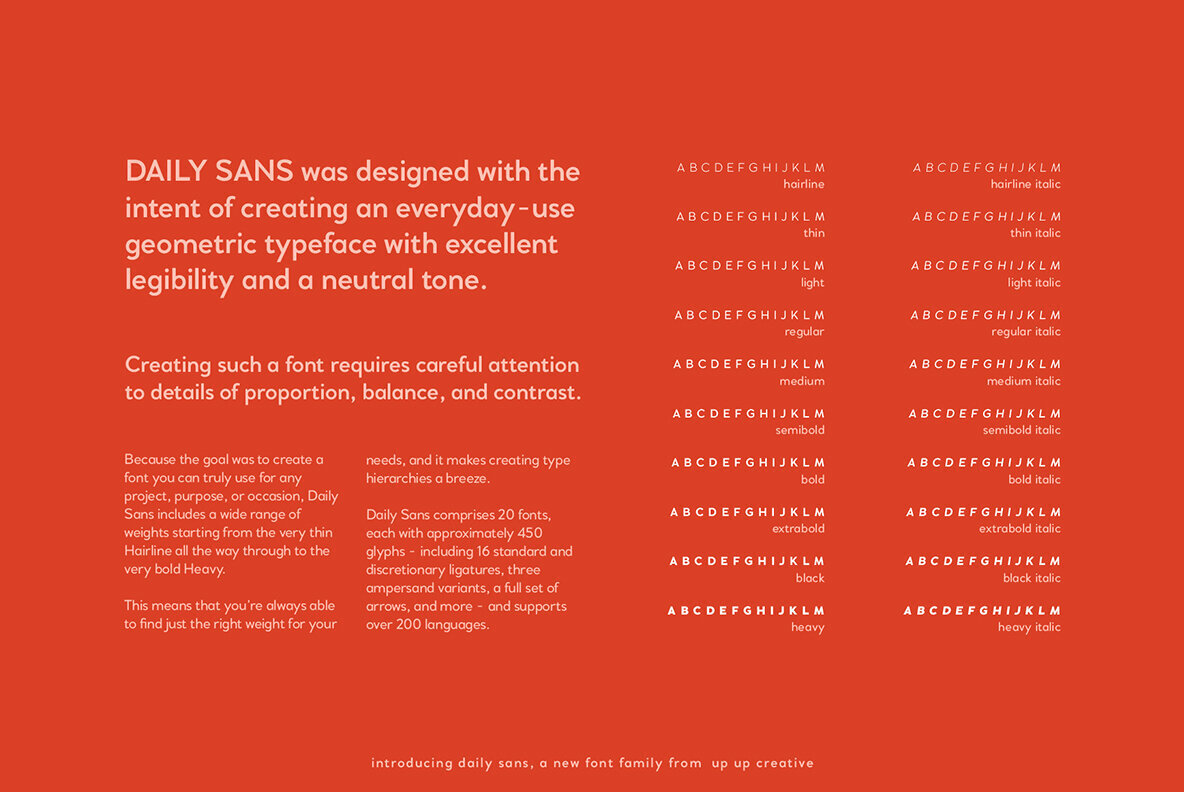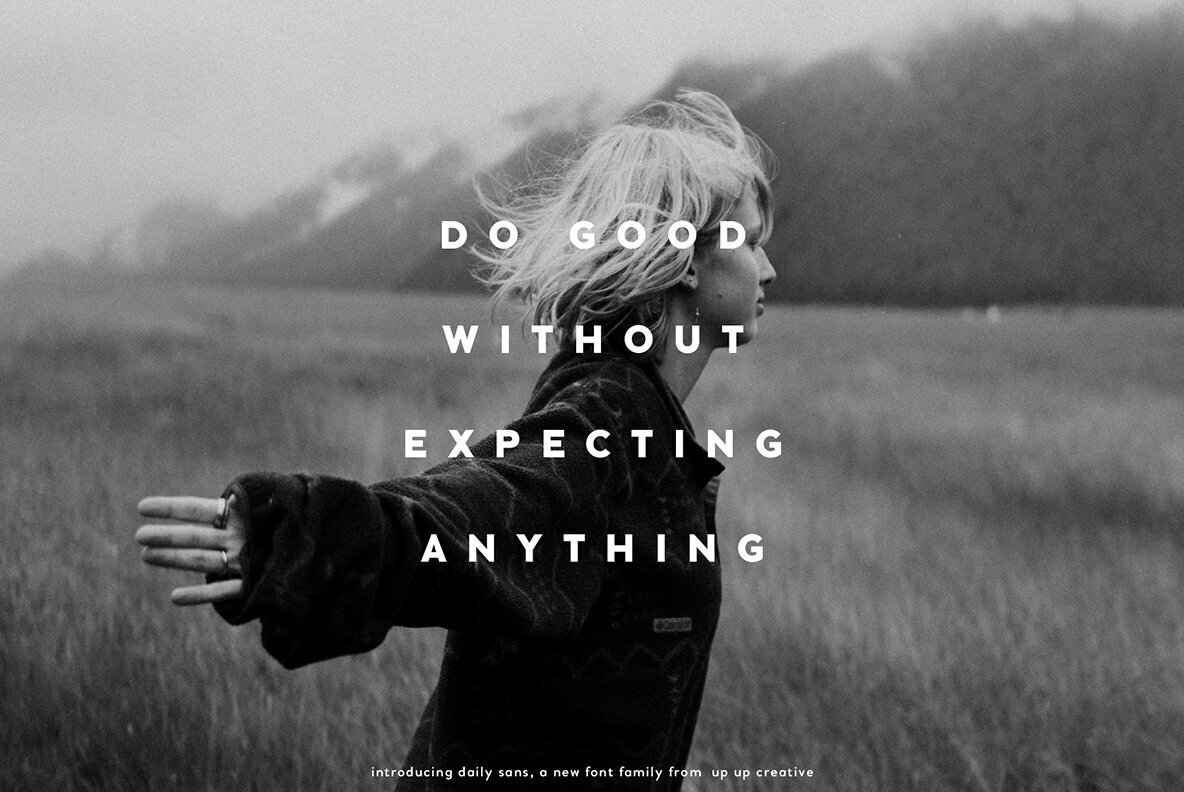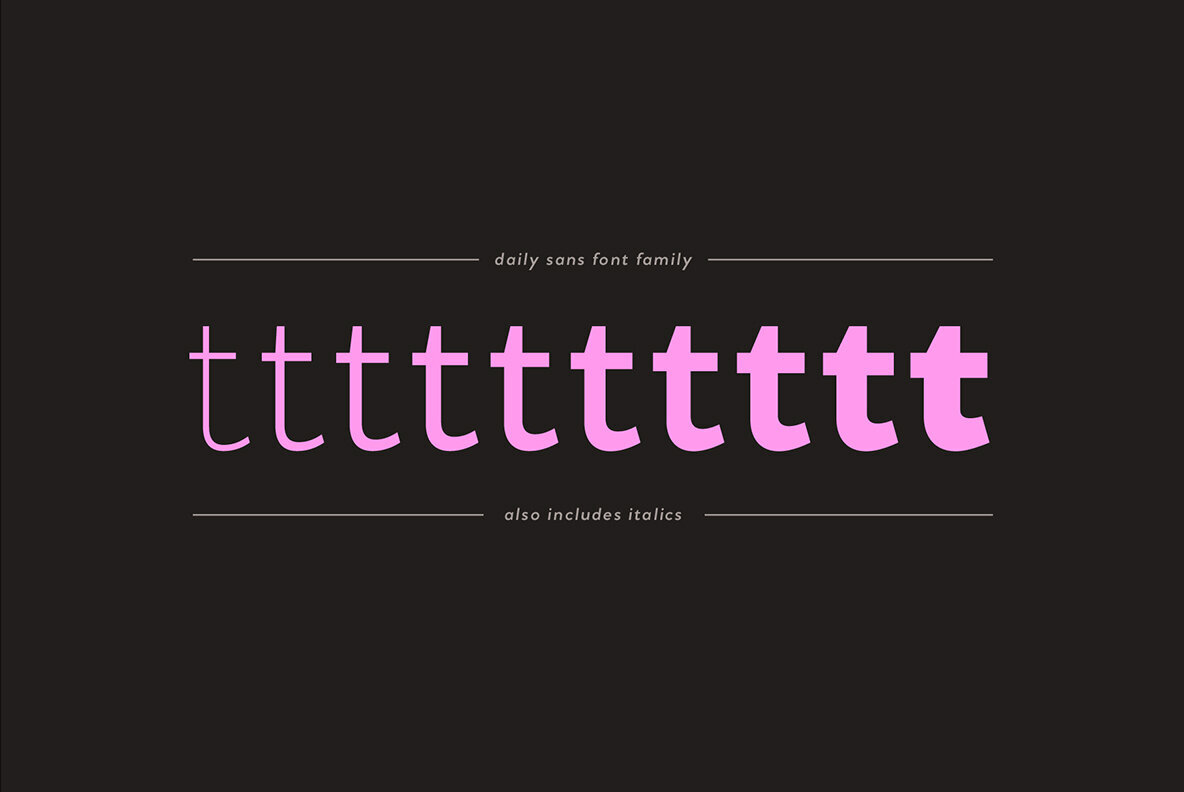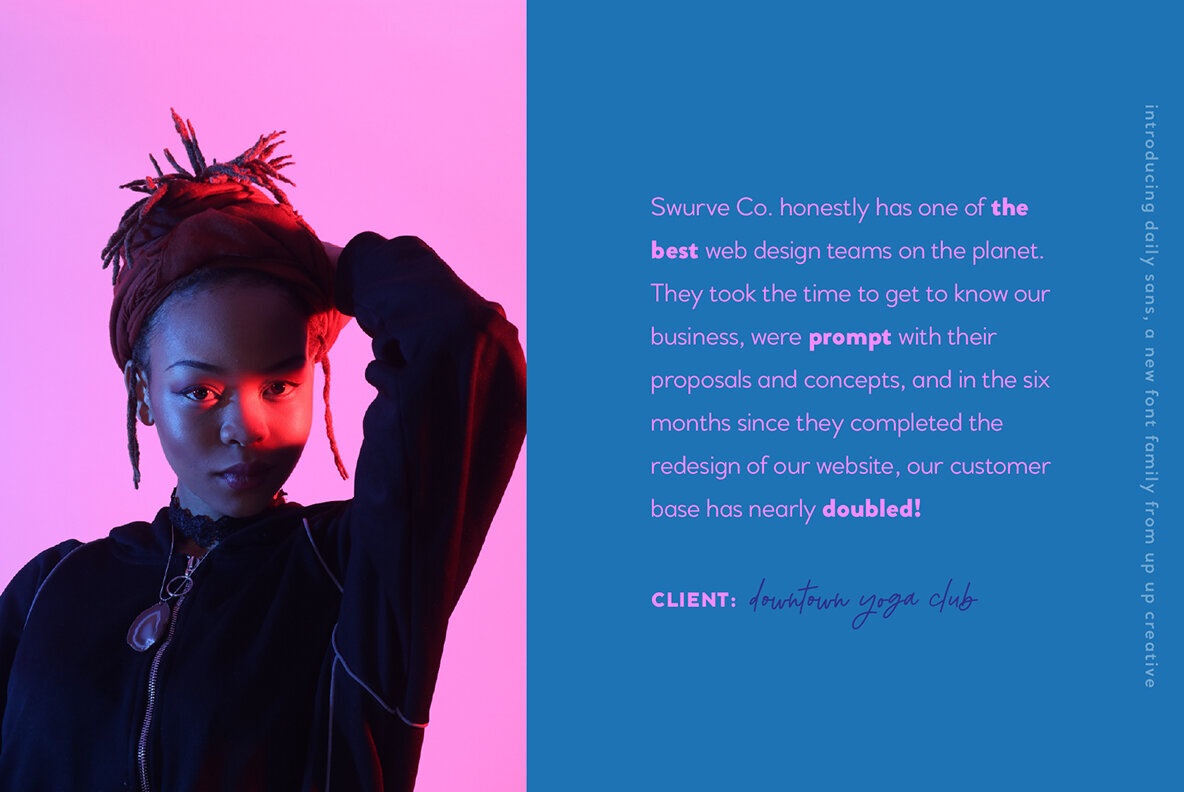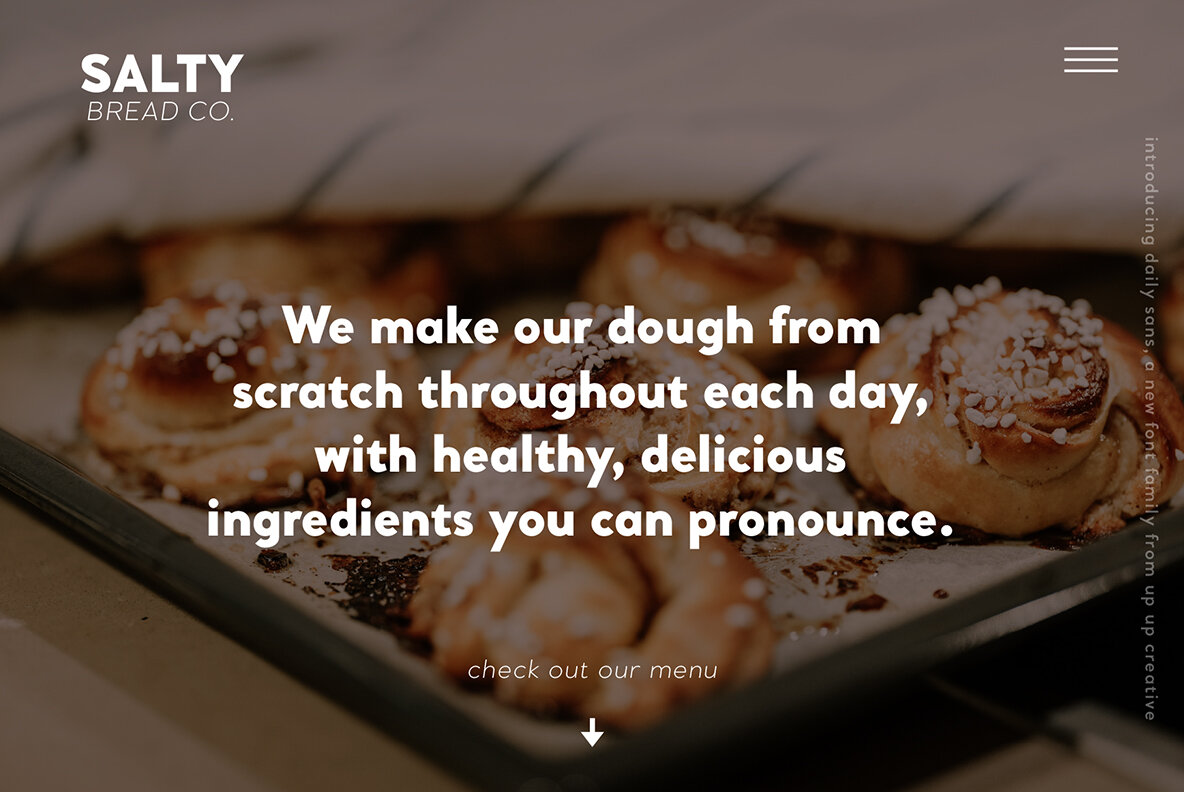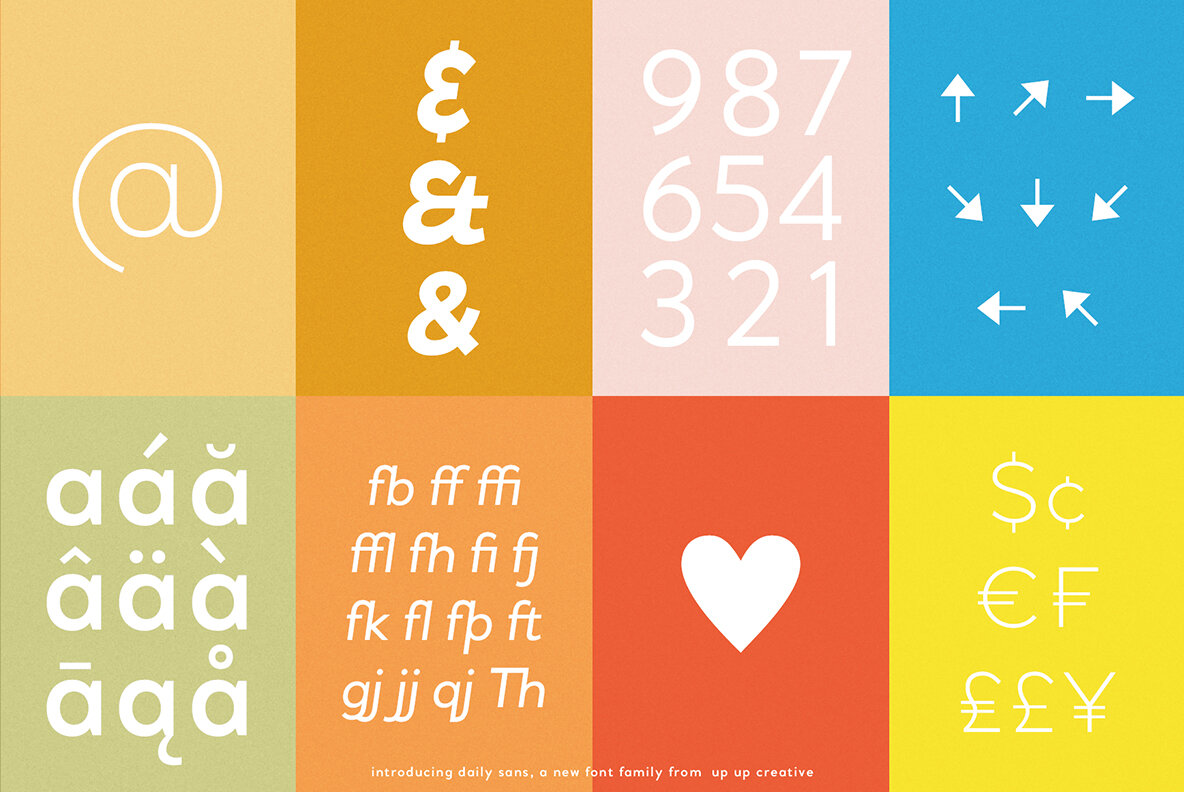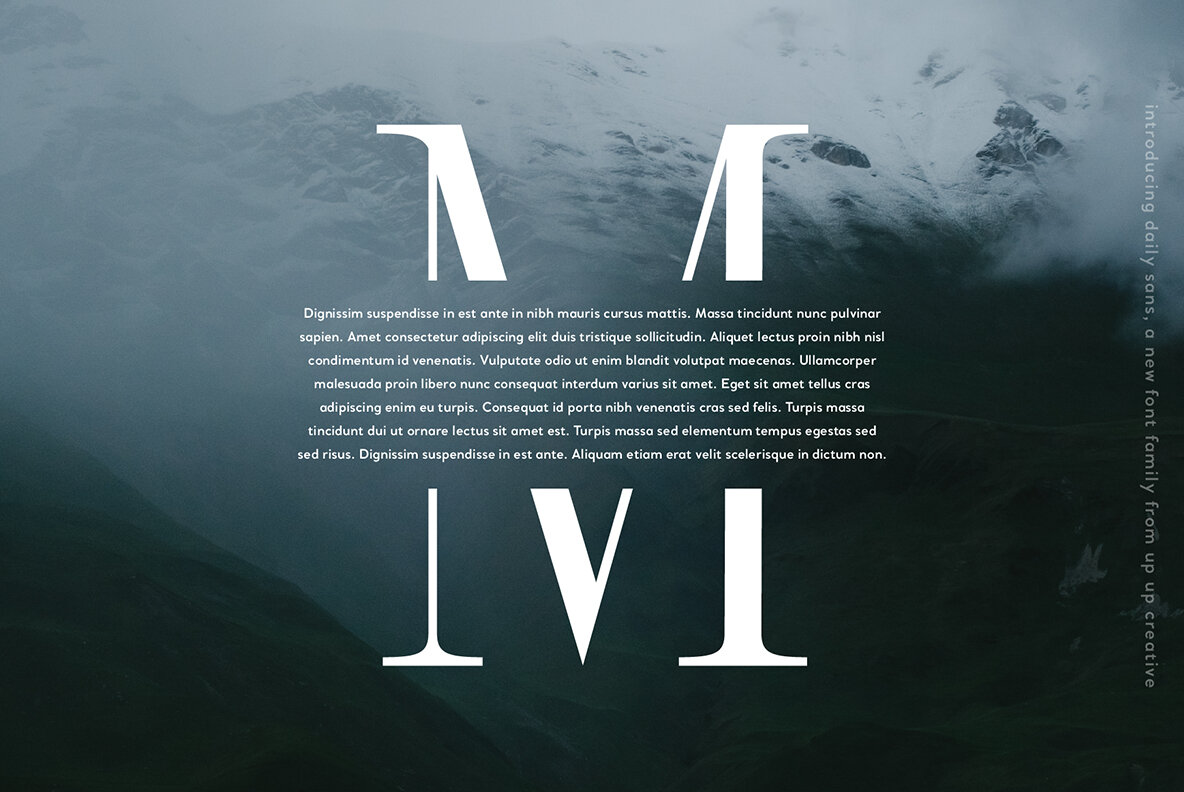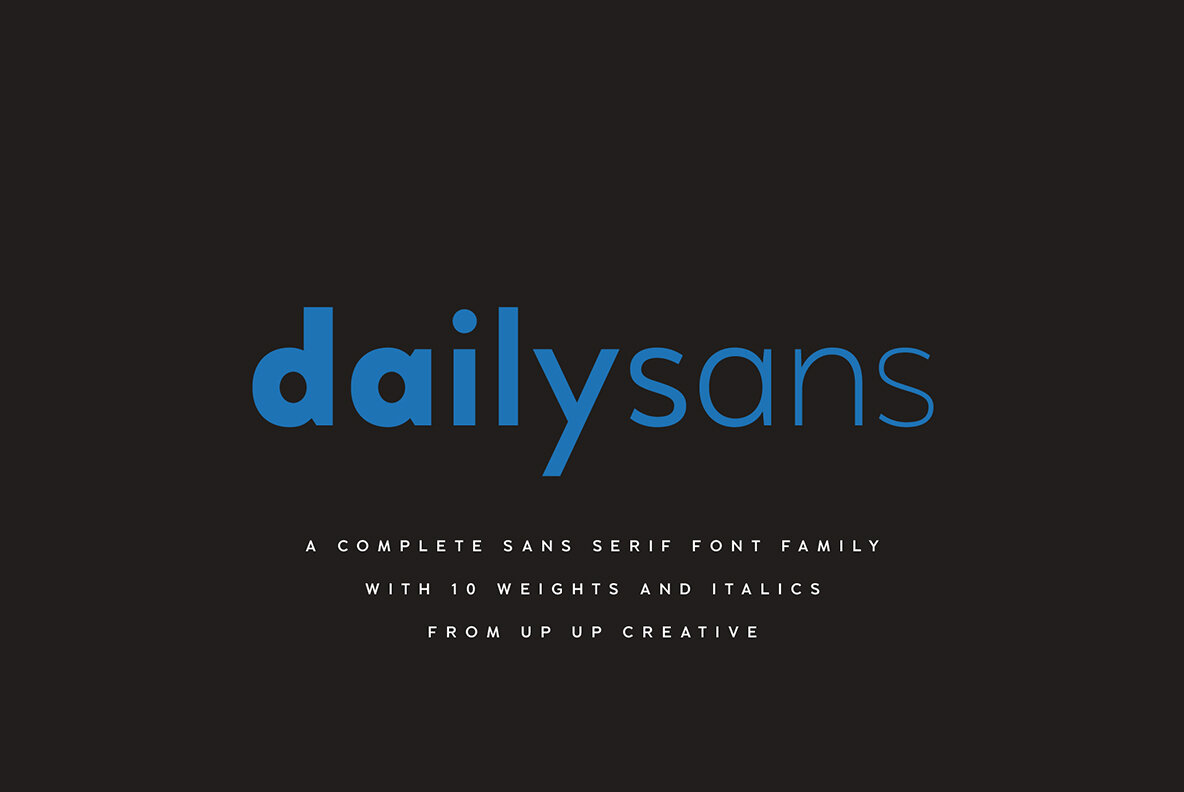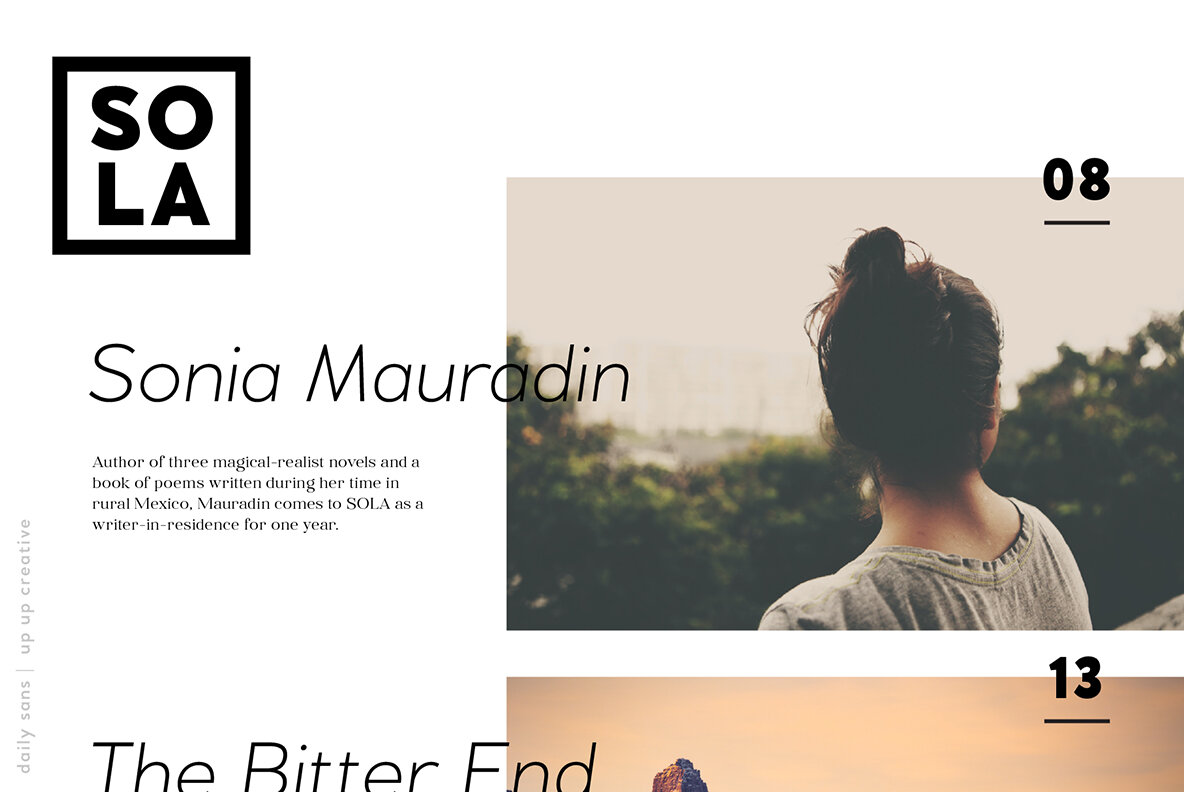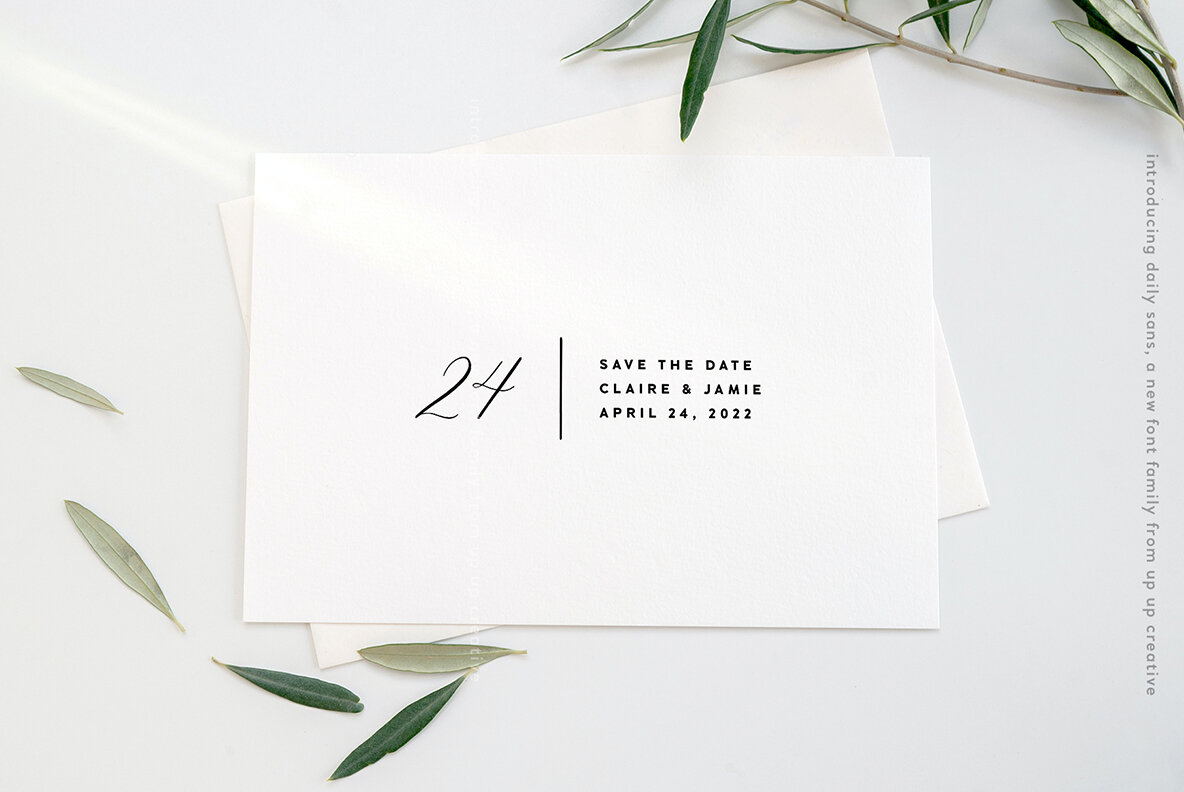
Daily Sans Font
Daily Sans, a complete sans serif font family with 10-weights, plus italics (20-fonts total). Daily Sans was designed to be an everyday-use geometric typeface with excellent legibility and a neutral tone, a perfect go-to for branding, web, and print design projects. It can stand out on its own or play a supporting role in font pairings. It’s great for body/paragraph type as well as for larger display type.
Because the goal was to create a font you can truly use for any project, purpose, or occasion, Daily Sans includes a wide range of weights starting from the very thin Hairline all the way through to the very bold Heavy. This means that you’re always able to find just the right weight for your needs, and it makes creating type hierarchies a breeze.
Daily Sans comprises 20 fonts, each with approximately 450 glyphs - including 16 standard and discretionary ligatures, three ampersand variants, a full set of arrows, and more - and supports over 200 languages. The OpenType features can be very easily accessed by using OpenType-savvy programs such as Adobe Illustrator and Adobe InDesign. (To access these awesome features in Microsoft Word, you'll need to get comfortable with the advanced tab of Word's font menu.)